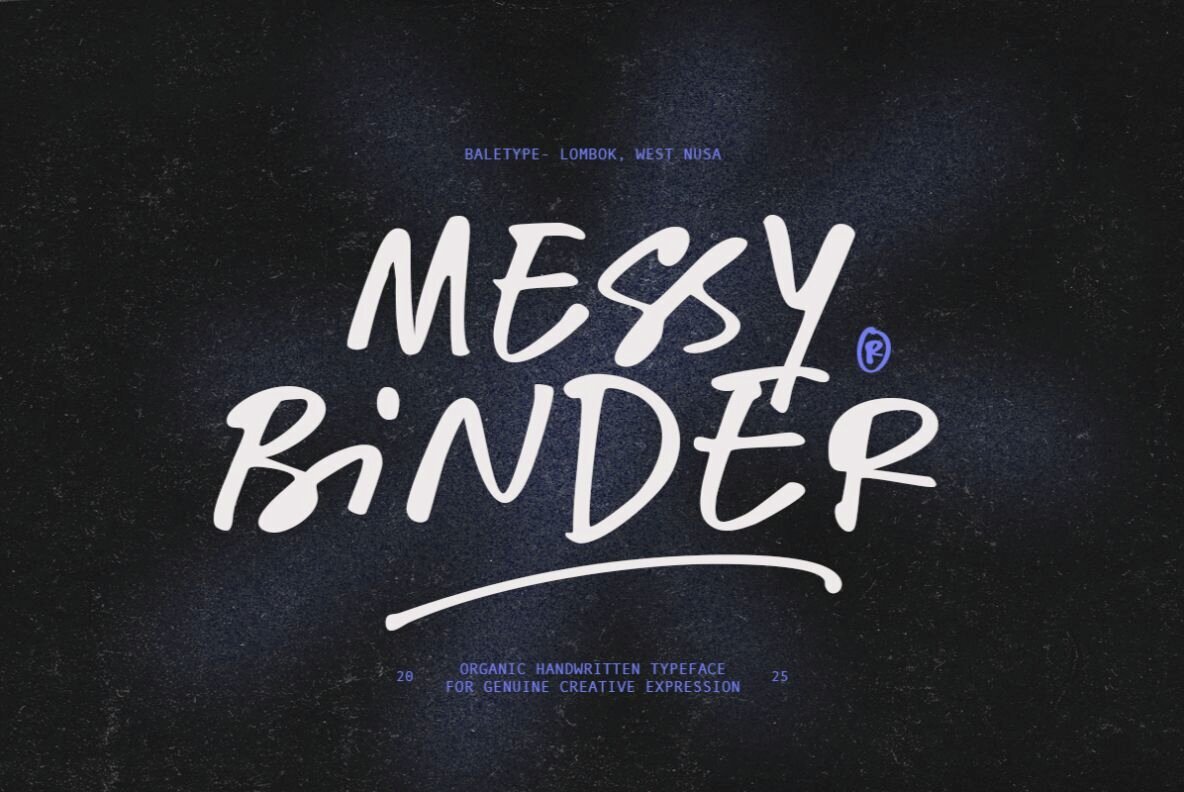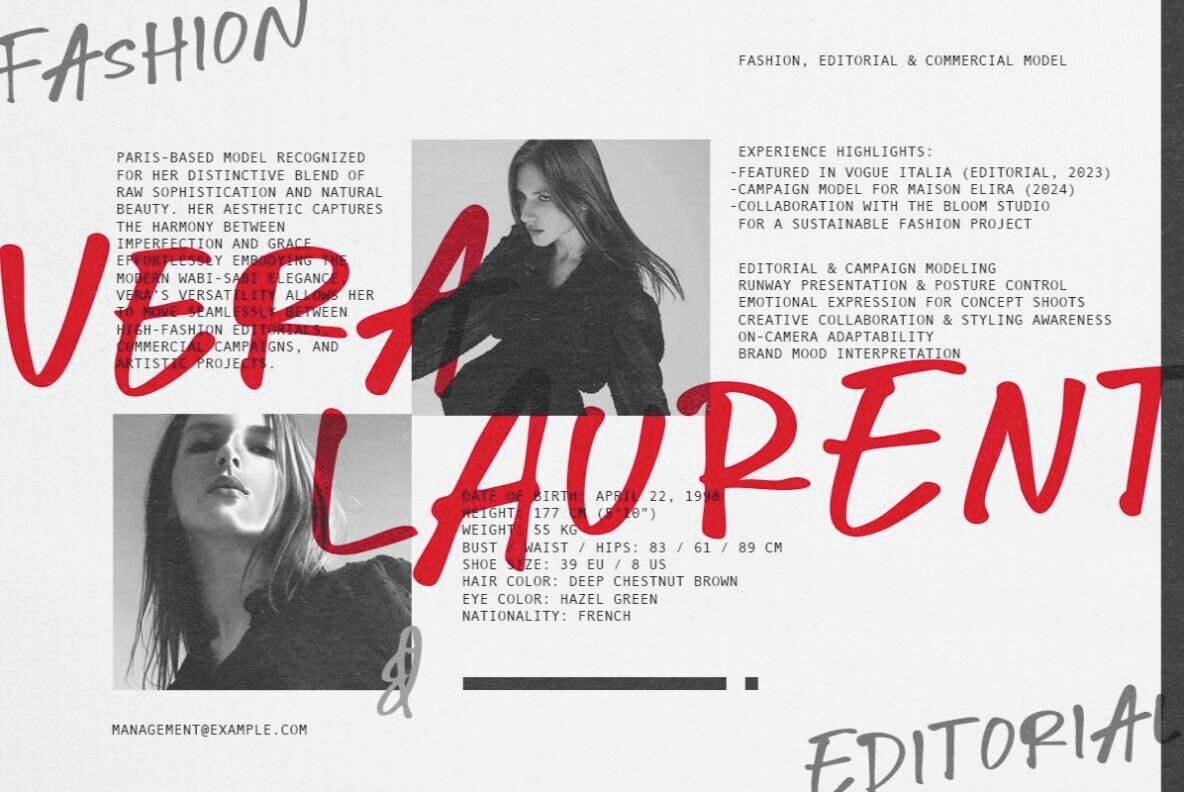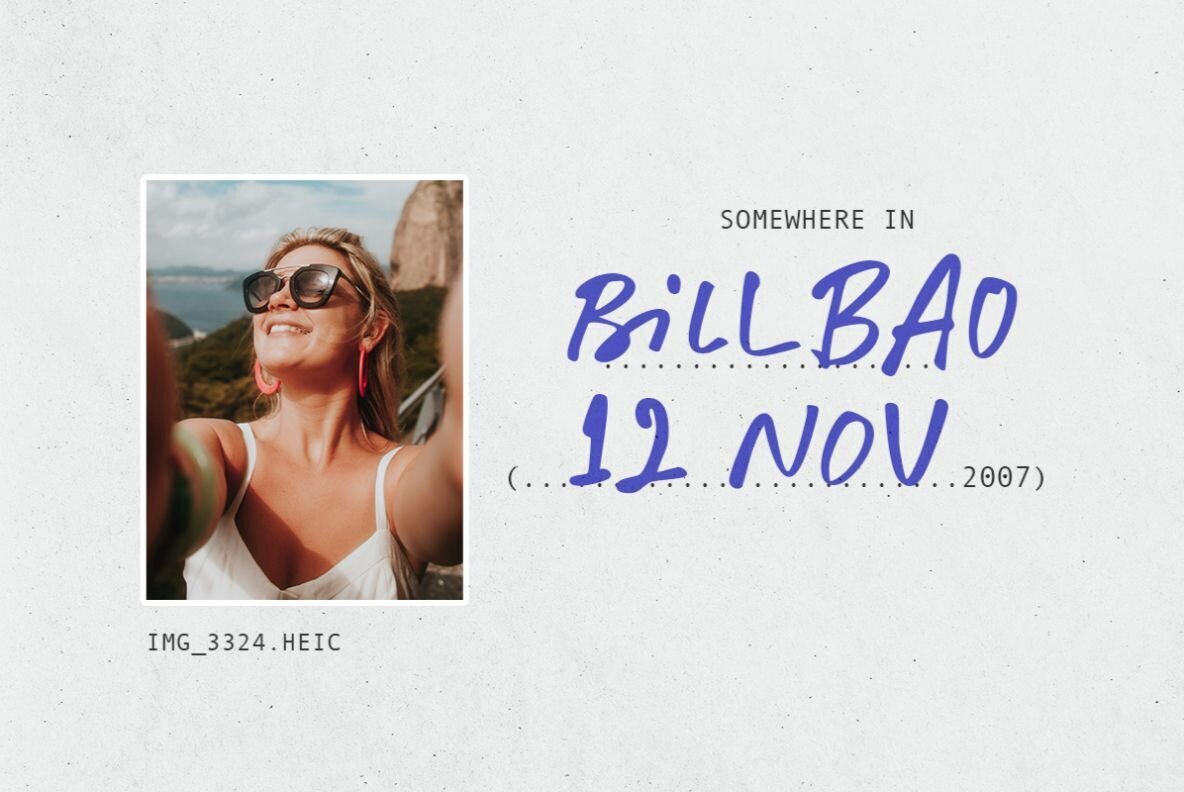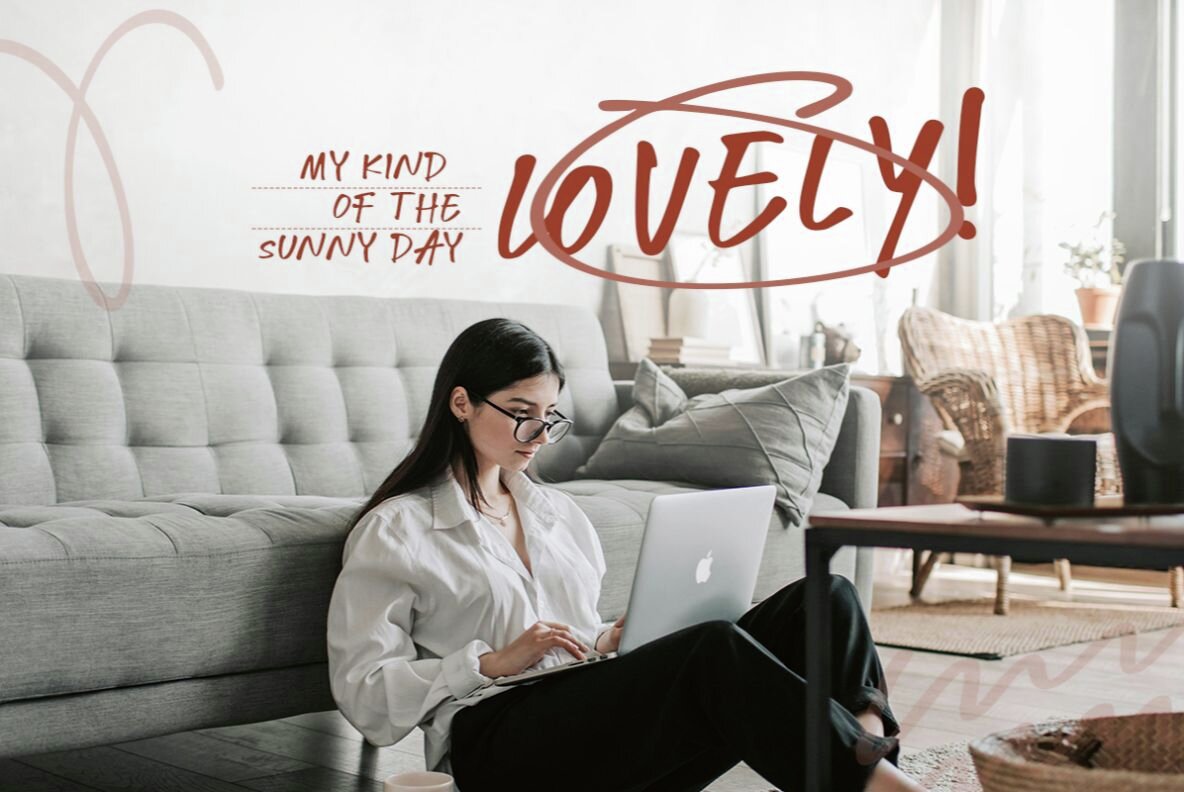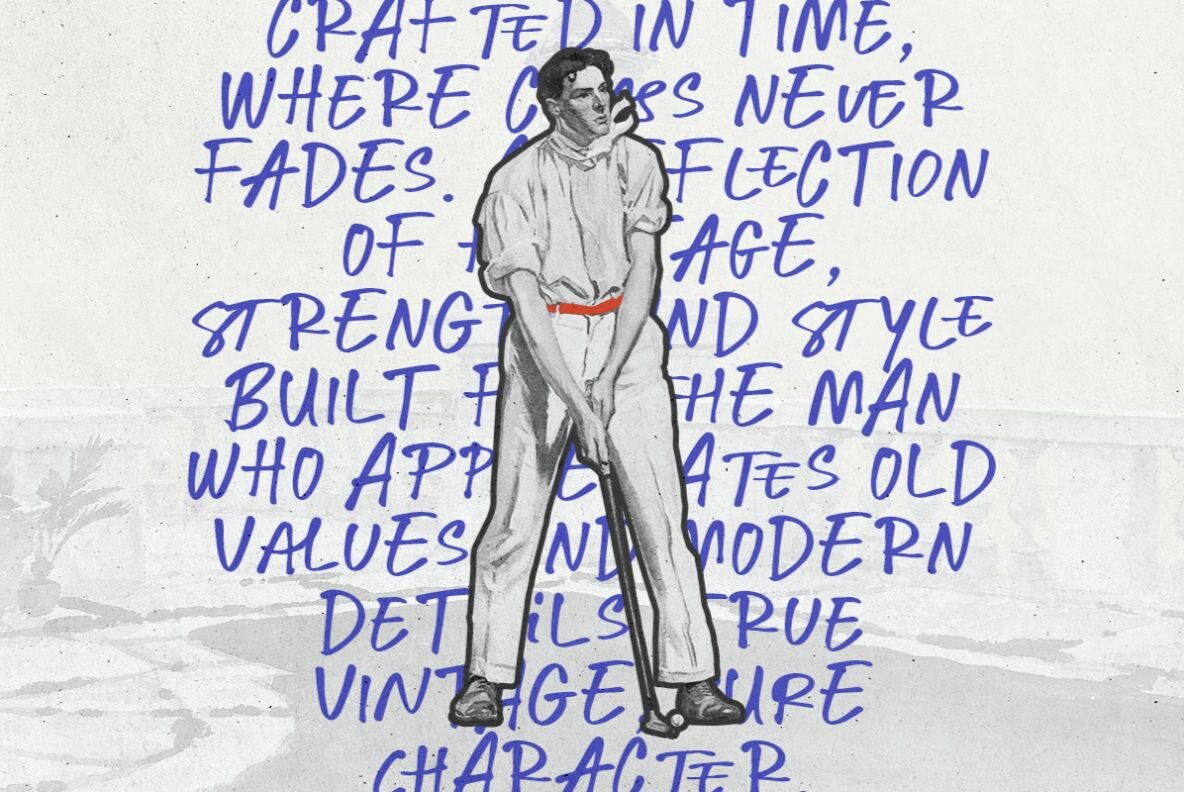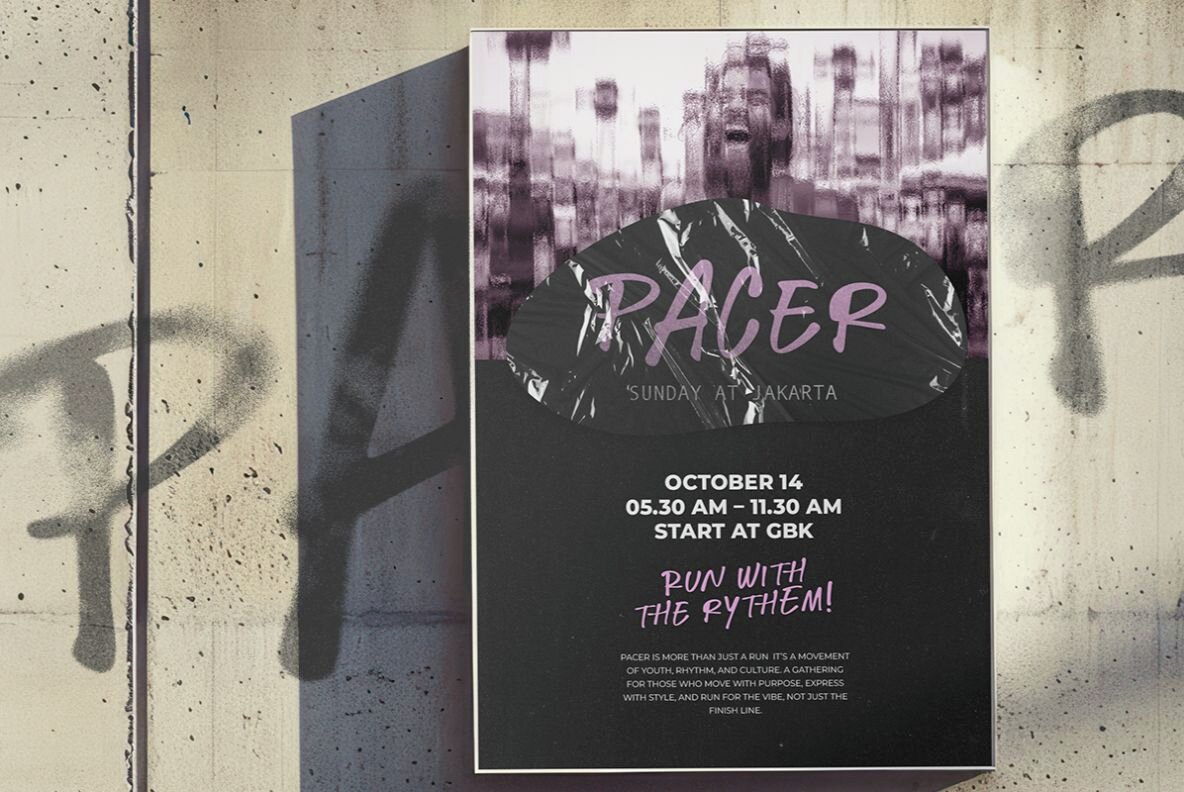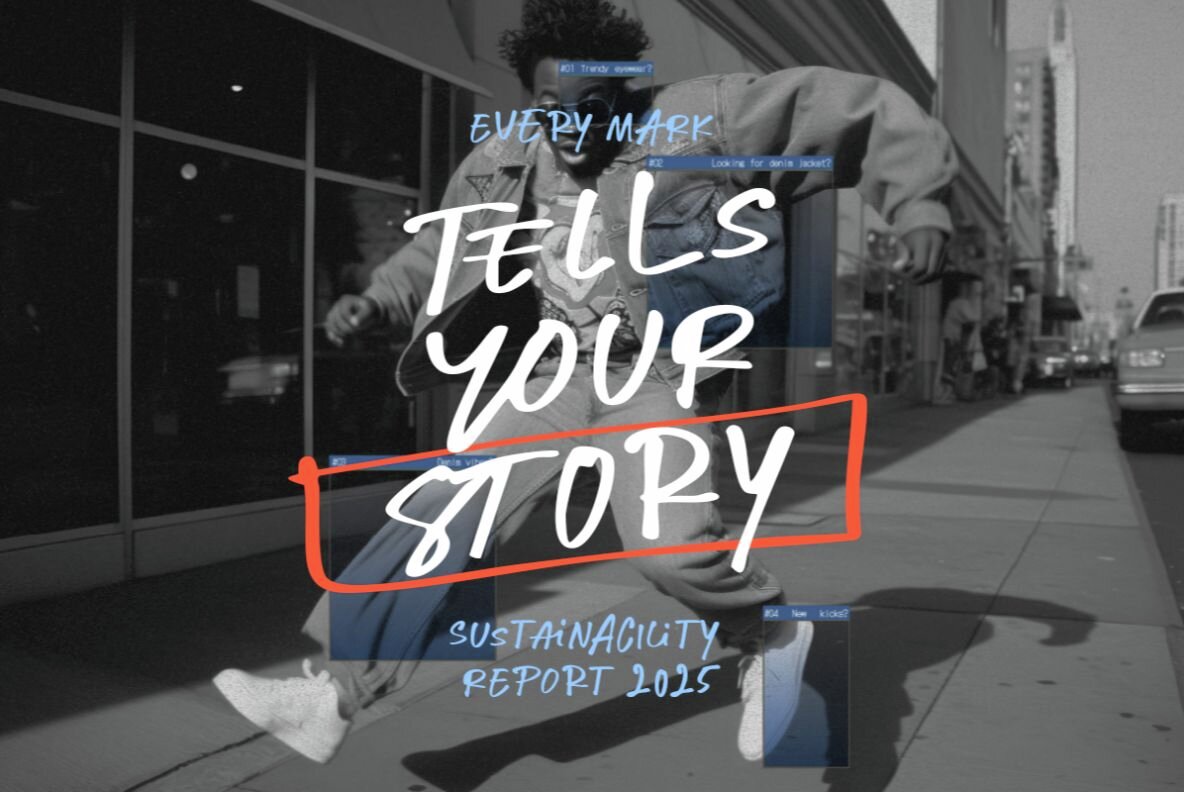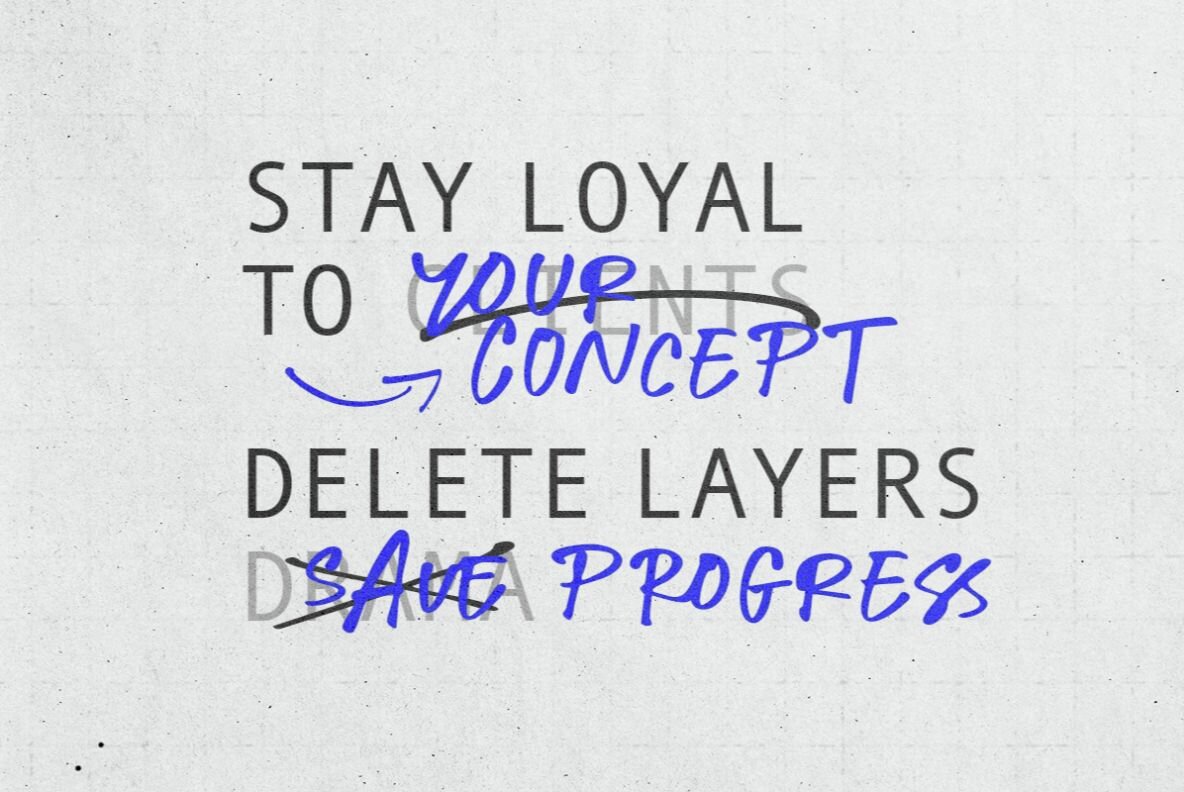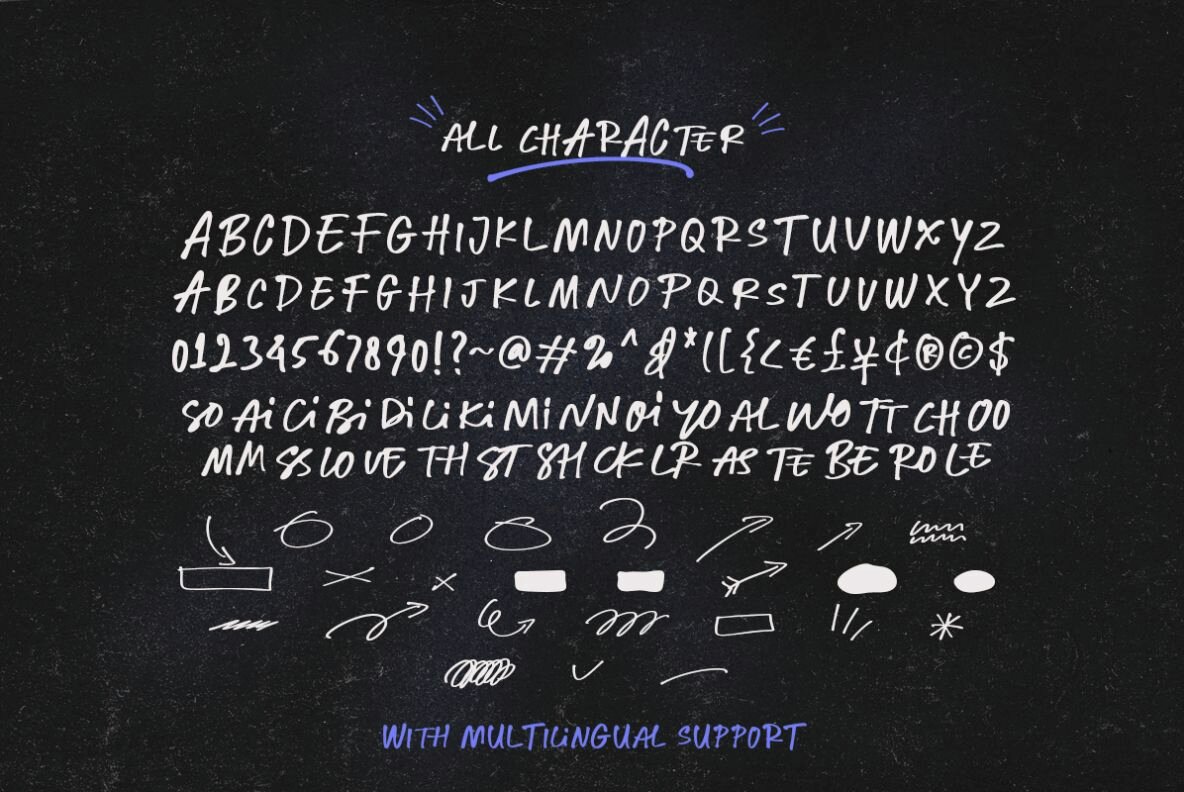
Messy Binder Font
Messy Binder Regular
Messy Binder brings a natural, handwritten style to your designs with a bold all caps approach. Hand-drawn imperfections and a thoughtful range of ligatures offer a genuinely personal touch, making each word feel custom-made. This font creates an authentic, expressive look that speaks to creativity and individuality. It’s well-suited for projects that call for a spontaneous, artistic edge—whether designing quotes, branding, captions, or graphics that benefit from intentional irregularity. The alternating ligatures ensure your type always looks refreshingly unscripted, while the included scribbles let you amplify the lived-in feel as needed. Multilingual support broadens versatility for global design.Messy Binder – Organic All Caps Handwritten Font